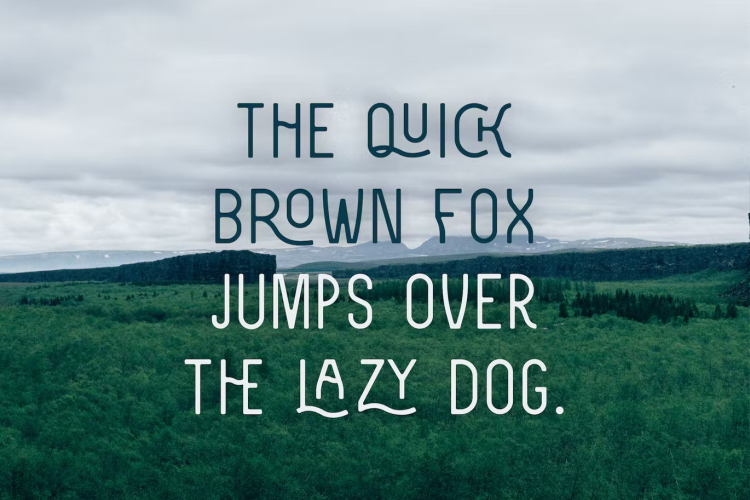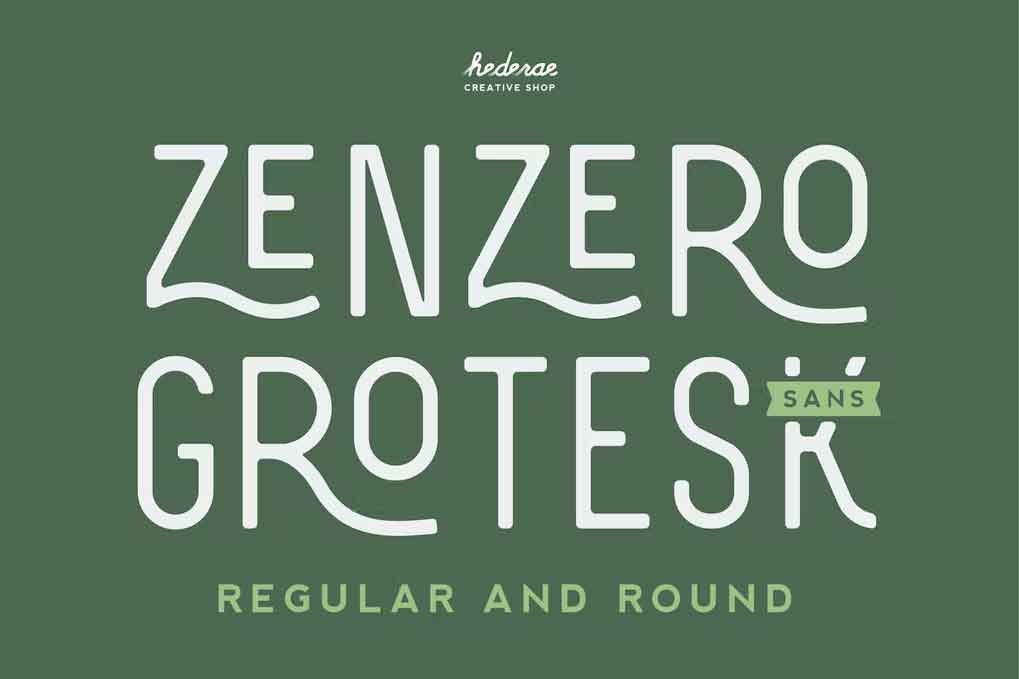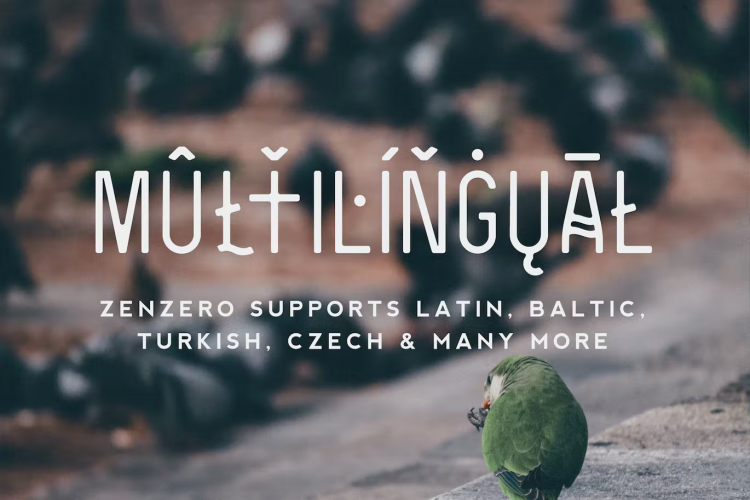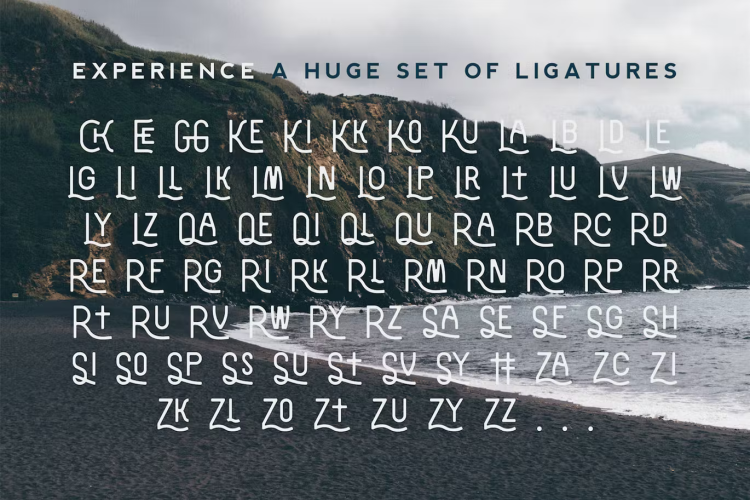
Zenzero Sans Font
Zenzero Grotesk Sans is a *Industrial based font that can be given different uses. Its main virtue is the endless number of possibilities for you to write words, texts or paragraphs. It boasts tons of ligatures and stylistic alternate glyphs, for a complete control of the final result.